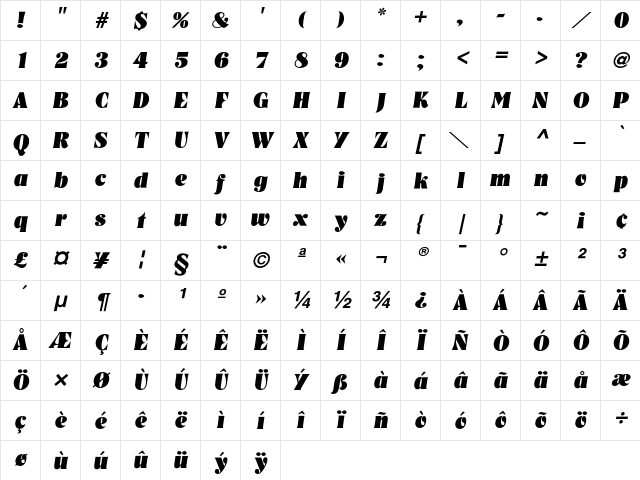
Nashville HvyItl Free Font
Nashville HvyItl
Style: HvyItl
Nashville Family
Nashville HvyItl
Design Context for Nashville
Nashville is a composed and adaptable typeface that performs quietly and consistently across a wide range of design contexts.